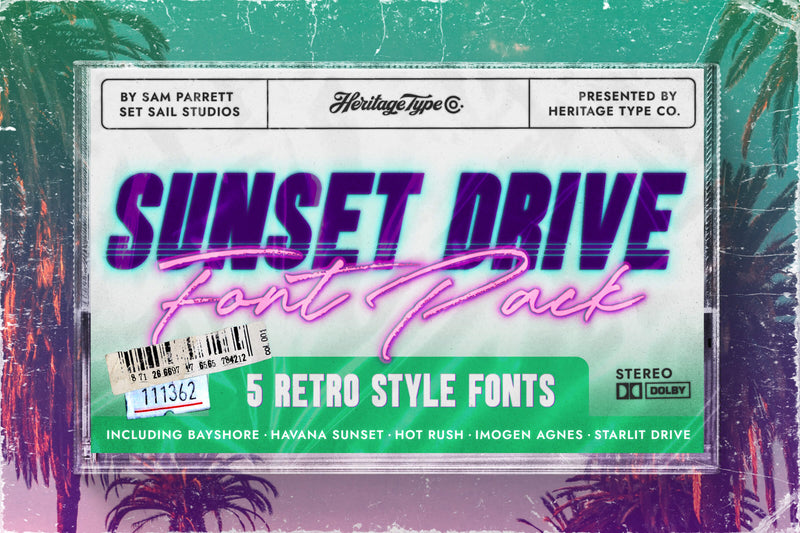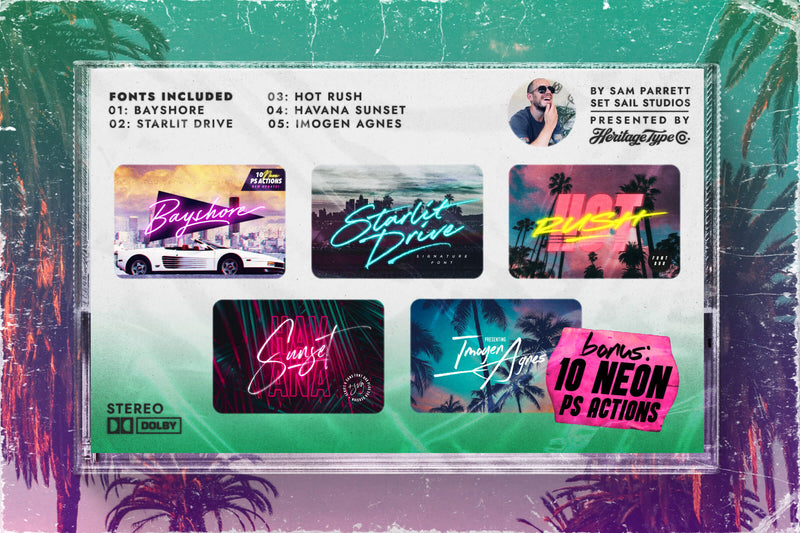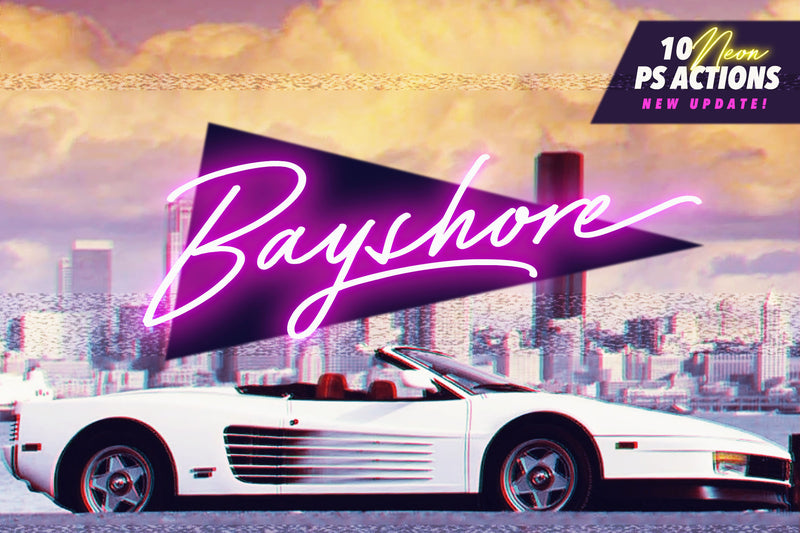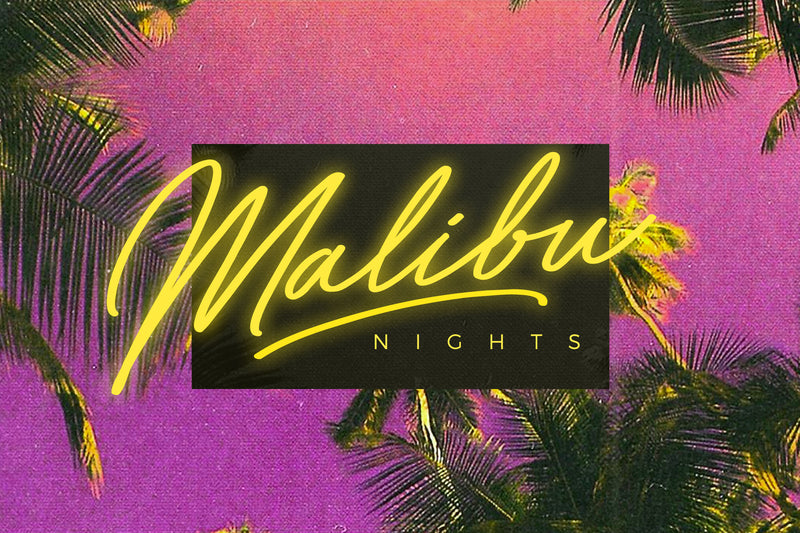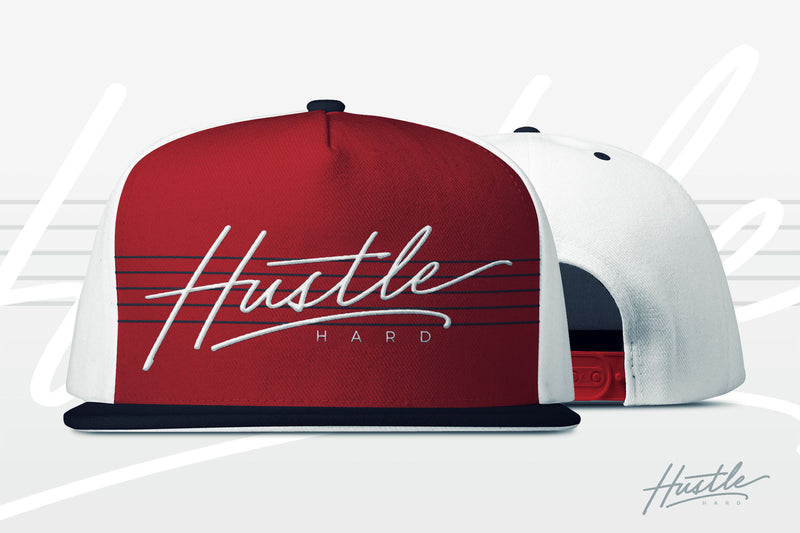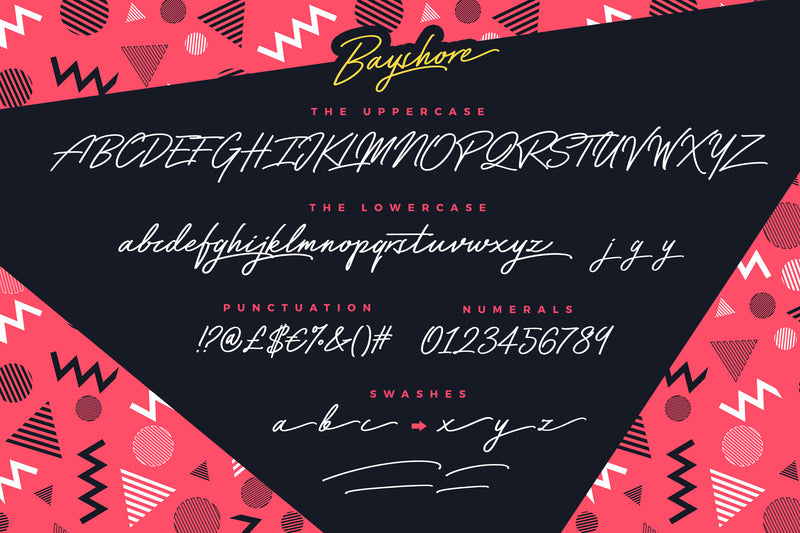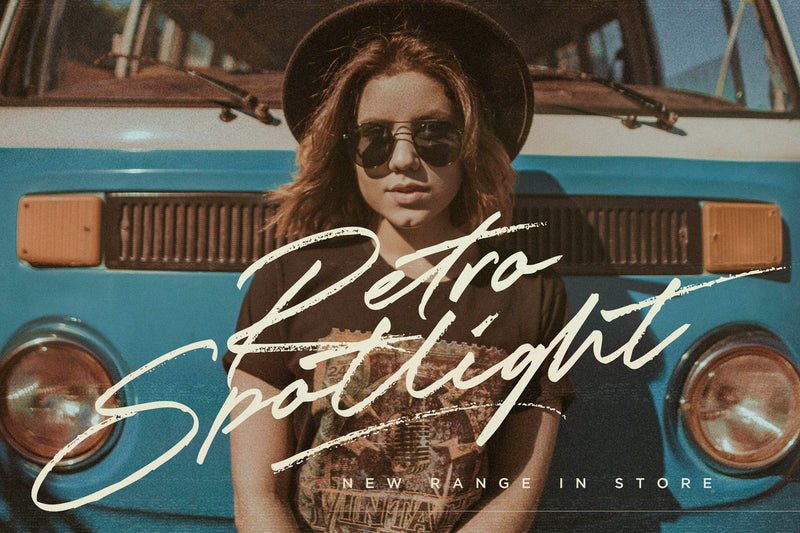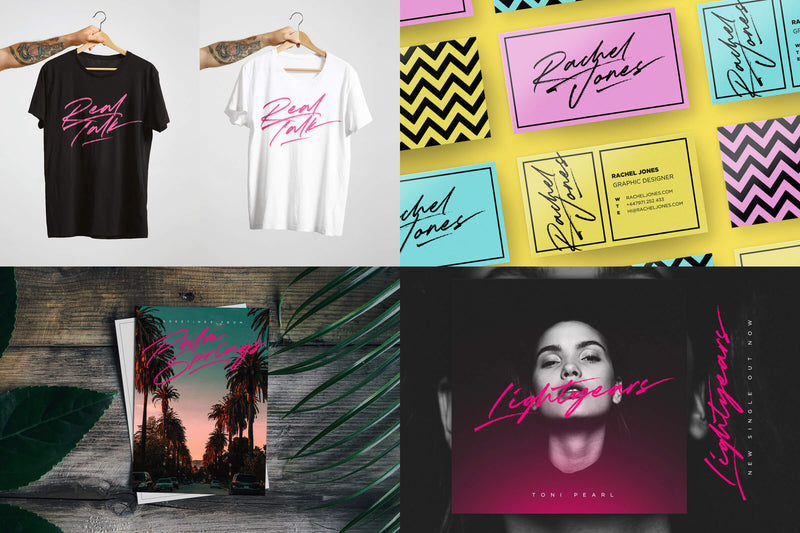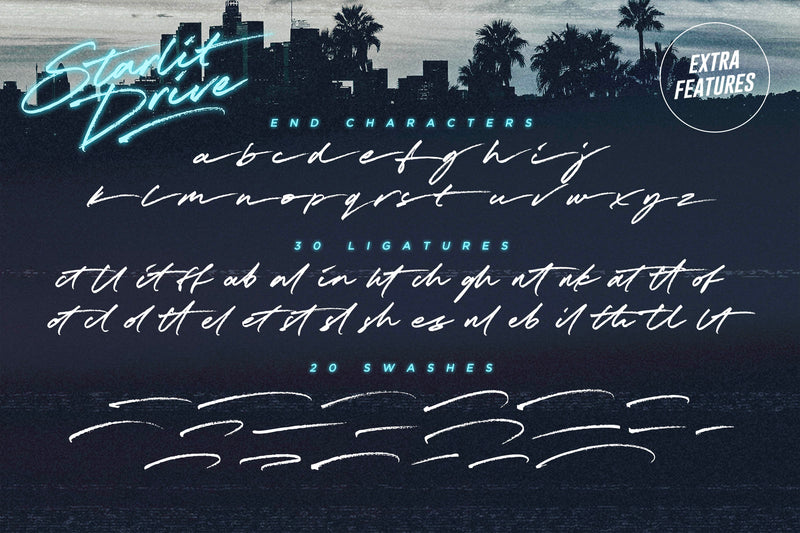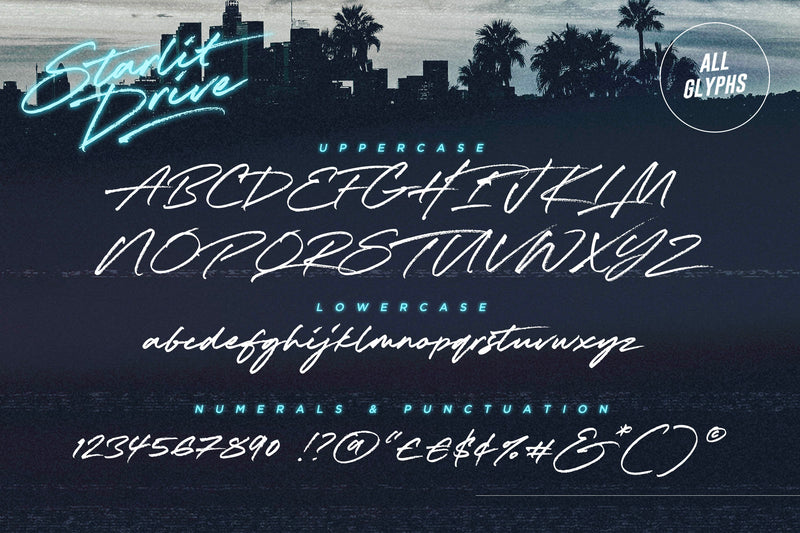
Sunset Drive Font Pack ☀️
“Sam Parrett is a hand lettering artist famous for incredible signature fonts which ooze retro influence from the 80s. Whether you create logos, digital projects, or brand label designs inspired by the groovy era, neon glowing font signatures are a must. Straight out from the 80s, Sam Parrett is bringing us the incredible five font sets featured in Sunset Drive Font Pack for Heritage Type Community only ".
Sunset Drive Font Pack includes:
Bayshore + New! Neon Glow Styles
A totally tubular mono-line script font straight out of the '80s.
This hand-drawn font is perfect for creating slick & stylish lettering. Whether it’s for logos, product packaging, or merchandise, Bayshore is guaranteed to give your text an unmistakeable retro quality.
Starlit Drive Signature Font
Get your aviators on and hit the road with Starlit Drive - a fast-paced, stylish signature font with a retro edge. With swift strokes and authentic dry textures, it's an irresistibly charismatic & confident font choice for a range of design projects.
Havana Sunset Font Duo + SVG
Analogue meets digital in this font duo, pairing a carefree & textured script font with a trendy all-caps sans-serif - creating the perfect typography contrast for fun, free & stylish design projects. This font duo is packed full of extra features; The script font includes a full alternate set of characters, as well as an additional SVG version, containing extra high-resolution textures. The sans font includes both a filled and an outlined version, giving you a variety of layout options. It's a lot of fun to experiment with!
Hot Rush Font Duo
This Sans & Script font duo was simply meant to be together. The unmistakable clean & condensed sansares are complimented perfectly by the script's long, fast, textured strokes. It's the ideal font pairing for retro-inspired high impact display text, merchandise design, logos, packaging & more.
Imogen Agnes
It works great for personal logos and makes for a strong standalone script font with a bit of a retro vibe. It comes with upper & lowercase characters, numerals, punctuation and supports international languages. It also comes with a bonus set of 15 swashes just to add that extra touch of finesse to your text.